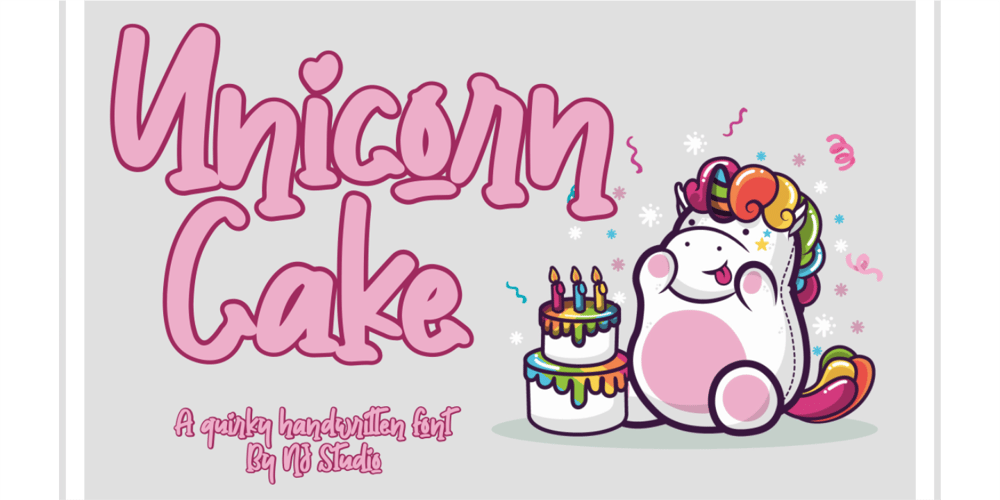
Unicorn Cake
Unicorn Cake font
Unicorn Cake Font Family was designed by Siti Nurjanah and published by NJ Studio. Unicorn Cake contains 1 styles and family package options. Hi…Thank for your visit :)Unicorn Cake A Quirky Handwritten Fonts are font designs that are made for various vector designs, printing such as digital wedding blogs, online shops, social media, while printing can be used in the field of product clothing, accessories, bags, pins, logos, business cards, watermarks and many others …so it can make your product look cute and attractive, and also Multilingual support!!!Happy design …